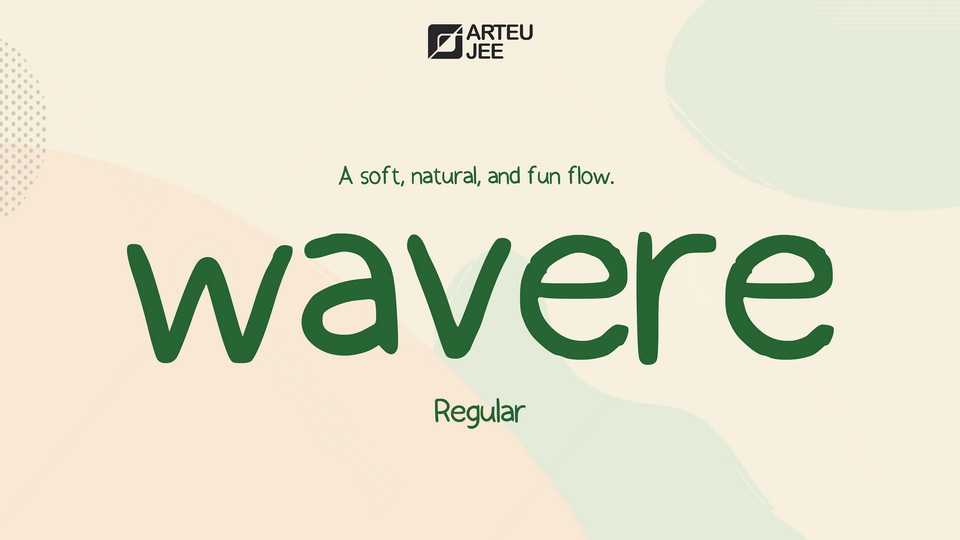
Download Wavere font, a soft, natural and fun hand drawn typeface. This font is designed to bring a balance of simplicity and fluidity, blending a clean sans-serif structure with organic curves.
Designer: arteu. jee